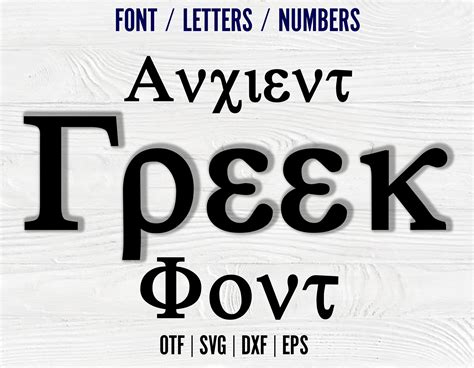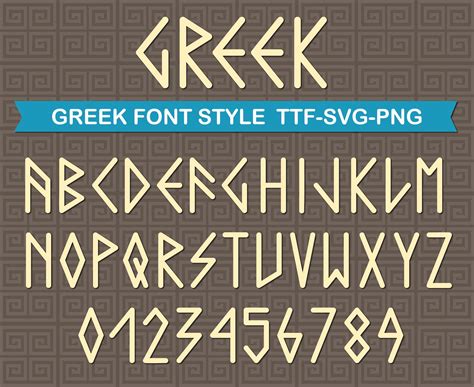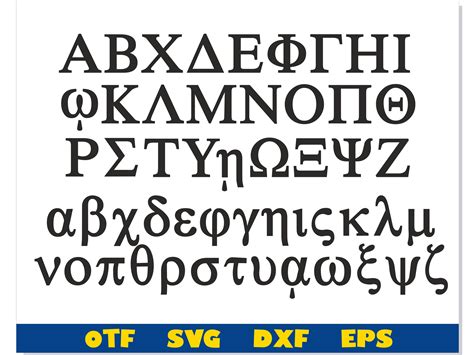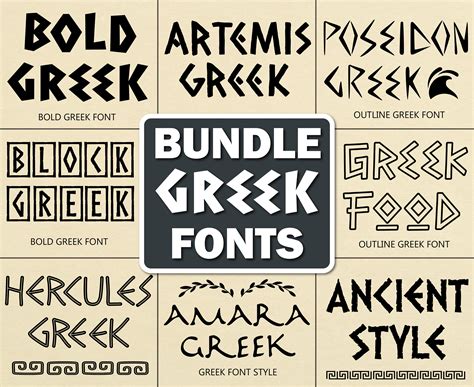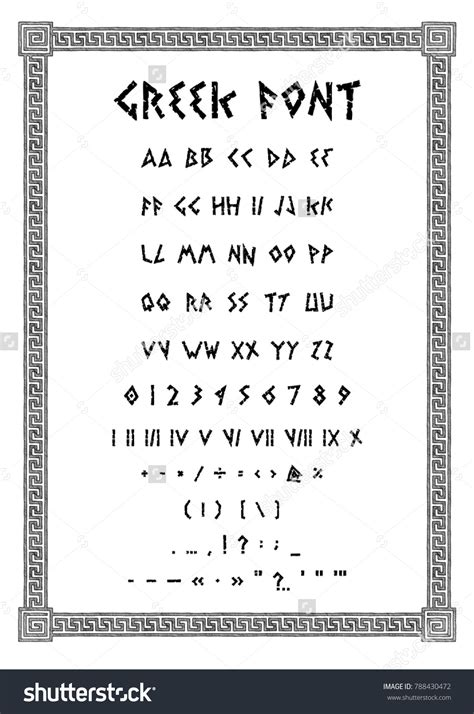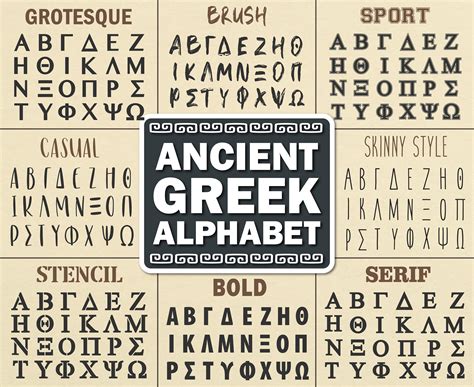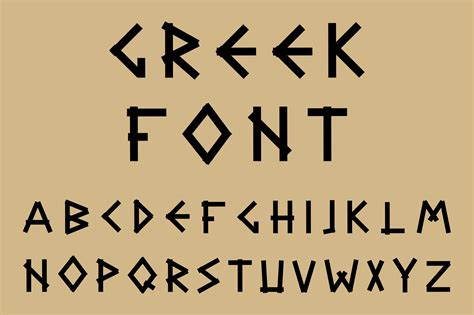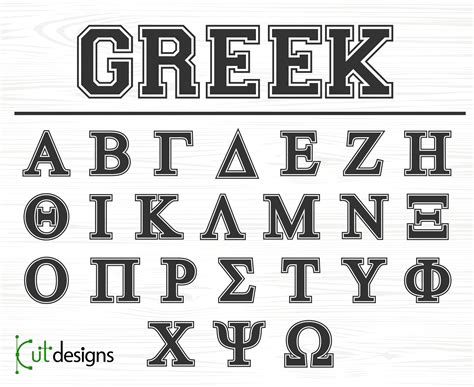
The world of typography is vast and diverse, with each font style carrying its own unique history and cultural significance. Among the many fonts that have stood the test of time, the Ancient Greek Font holds a special place. This font style is not just a means of written communication but a window into the rich cultural heritage of ancient Greece. Understanding the Ancient Greek Font involves delving into its historical context, its evolution, and its modern-day applications.
The Historical Context of Ancient Greek Font
The Ancient Greek Font traces its roots back to the 8th century BCE, when the Greek alphabet was first developed. This alphabet was a significant innovation, as it was one of the earliest writing systems to use distinct letters for vowels and consonants. The Greek alphabet was derived from the Phoenician alphabet but was adapted to better suit the phonetic structure of the Greek language.
The earliest forms of the Ancient Greek Font were inscribed on stone tablets, pottery, and other artifacts. These inscriptions provide valuable insights into the daily life, religion, and governance of ancient Greek societies. Over time, the font evolved, with different regions and city-states developing their own variations. For example, the Attic alphabet, used in Athens, became one of the most influential forms of the Ancient Greek Font.
Evolution of the Ancient Greek Font
The evolution of the Ancient Greek Font can be divided into several key periods:
- Archaic Period (8th-5th century BCE): During this period, the Greek alphabet was standardized, and the Ancient Greek Font began to take on a more uniform appearance. The letters were often written in a cursive style, with variations depending on the region.
- Classical Period (5th-4th century BCE): This period saw the development of a more refined and elegant form of the Ancient Greek Font. The letters became more symmetrical and balanced, reflecting the aesthetic ideals of classical Greek art and architecture.
- Hellenistic Period (3rd-1st century BCE): During the Hellenistic era, the Ancient Greek Font continued to evolve, with the introduction of new letter forms and styles. The font became more decorative, with elaborate flourishes and embellishments.
- Roman Period (1st century BCE-4th century CE): With the rise of the Roman Empire, the Ancient Greek Font was influenced by Roman typography. The letters became more angular and geometric, reflecting the Roman preference for clarity and precision.
Characteristics of the Ancient Greek Font
The Ancient Greek Font is characterized by its distinctive letter forms and stylistic features. Some of the key characteristics include:
- Letter Forms: The Ancient Greek Font uses a set of 24 letters, including seven vowels and 17 consonants. Each letter has a unique shape and sound, making it a phonetic alphabet.
- Cursive Style: Early forms of the Ancient Greek Font were often written in a cursive style, with letters flowing into one another. This style was particularly common in inscriptions and manuscripts.
- Symmetry and Balance: The classical form of the Ancient Greek Font is known for its symmetry and balance. The letters are often evenly spaced and proportioned, reflecting the aesthetic ideals of classical Greek art.
- Decorative Elements: During the Hellenistic period, the Ancient Greek Font became more decorative, with elaborate flourishes and embellishments. These decorative elements added a sense of elegance and sophistication to the font.
Modern-Day Applications of the Ancient Greek Font
Despite its ancient origins, the Ancient Greek Font continues to be used in various modern-day applications. Its timeless elegance and cultural significance make it a popular choice for a wide range of purposes. Some of the modern-day applications of the Ancient Greek Font include:
- Academic Publications: The Ancient Greek Font is often used in academic publications, particularly in the fields of classics, linguistics, and history. It provides a authentic and scholarly look to texts and documents.
- Design and Typography: The Ancient Greek Font is a popular choice for designers and typographers. Its distinctive letter forms and stylistic features make it a versatile and visually appealing font for a variety of design projects.
- Cultural Events and Exhibitions: The Ancient Greek Font is often used in cultural events and exhibitions, such as museum displays, art installations, and theatrical performances. It adds a sense of authenticity and historical context to these events.
- Digital Media: With the rise of digital media, the Ancient Greek Font has found new applications in web design, mobile apps, and digital publications. Its timeless elegance and cultural significance make it a popular choice for creating visually appealing and culturally rich digital content.
Here is a table showing some of the most common letters in the Ancient Greek Font and their modern equivalents: